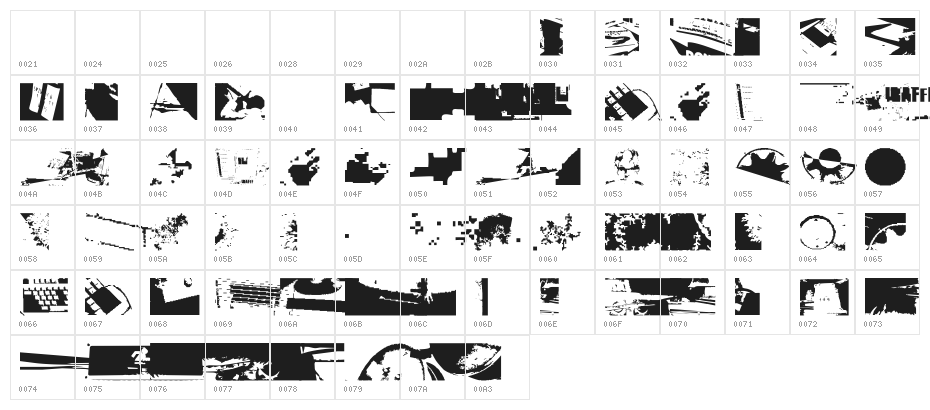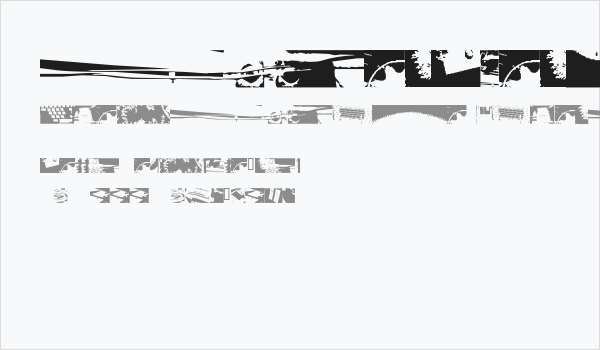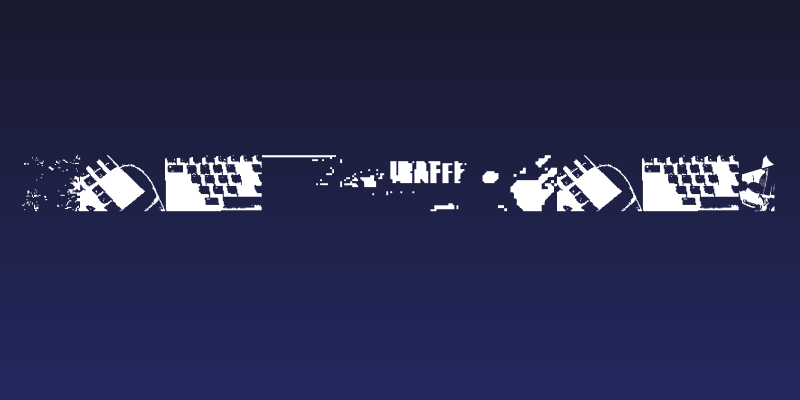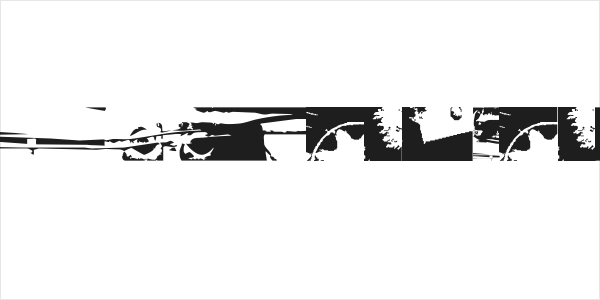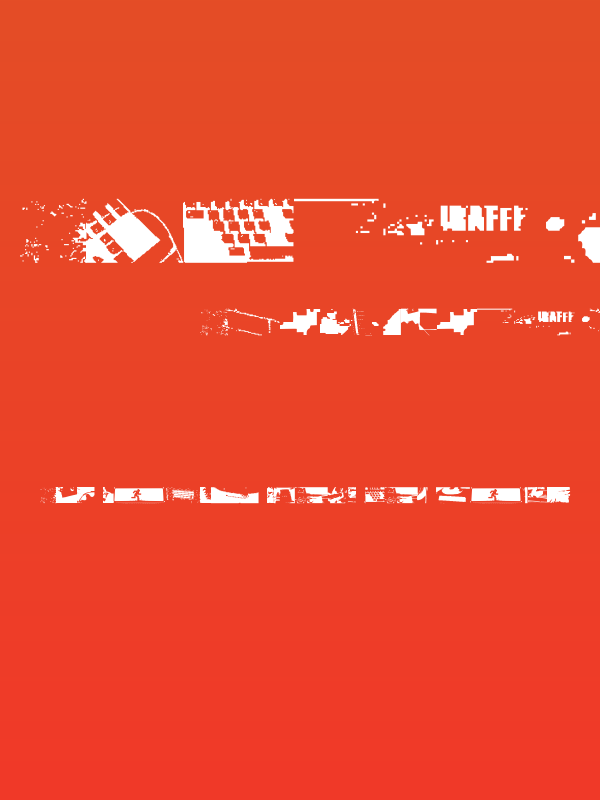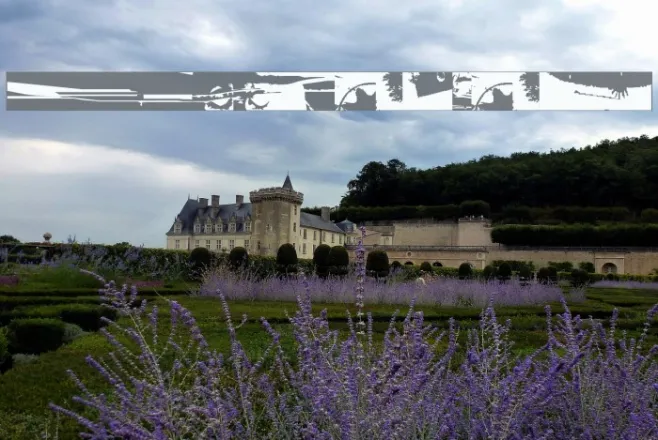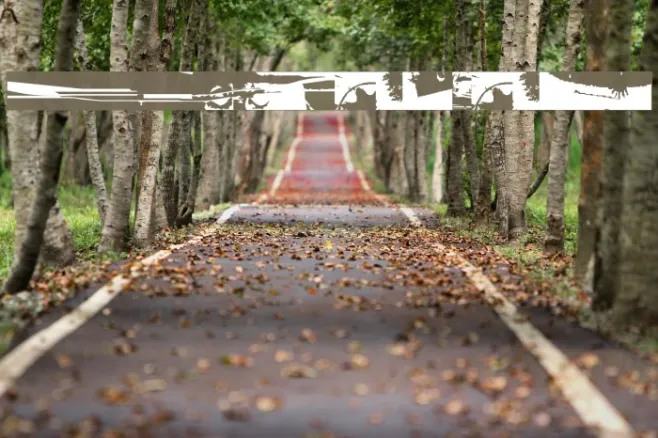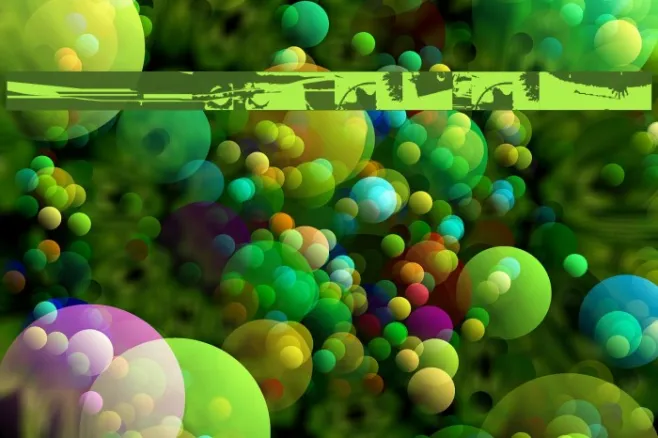
techneck Font
techneck Description
This is not a valid font. The image appears to contain a series of abstract or artistic representations rather than a cohesive set of typographic characters. Each segment seems to incorporate various elements and designs that do not correspond to standard alphanumeric characters or symbols typically found in a font set.